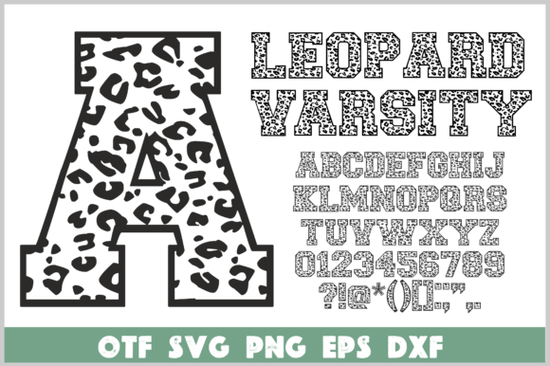
If you have been looking for a bold display typeface that mixes classic college lettering with a fierce animal texture, the Leopard Varsity Font is worth a close look. This font blends thick varsity shapes with a detailed leopard coat pattern inside each character, giving you a ready‑to‑use alphabet that feels loud, energetic, and completely original. It has become a favorite among crafters, print‑on‑demand sellers, and small clothing brands who want lettering that grabs attention without extra editing.
What makes this leopard print font different from a regular varsity style?
Many sports fonts rely on solid outlines and a plain fill. What sets this set apart is the built‑in animal texture. Every uppercase letter, lowercase letter, and number carries a high‑contrast leopard coat pattern that stays crisp at large sizes. Instead of applying a pattern overlay manually, you get the look instantly. That saves time when you are preparing hoodie mockups, poster art, or tumbler decals. The combination of collegiate weight and safari‑inspired detail makes the typeface work for both retro‑style team apparel and trendy streetwear.
What can I actually make with a bold animal alphabet?
How does it hold up on different backgrounds and materials?
Because the leopard detail has high contrast with a mix of dark spots and a light base inside each letter, the font stays readable on both light and dark fabrics. On dark hoodies, a gold or white heat transfer vinyl cut brings out the texture well. On light backgrounds, the pattern inside the letters creates a rich, dimensional look even without an outline. Designers who work with sublimation find the PNG files especially useful because they can stack the alphabet over leopard‑print backgrounds without losing the letter shapes.
Does it support multilingual projects or special characters?
This is a display font first, so it covers a broad set of uppercase and lowercase letters along with numerals and basic punctuation. It is not designed for extended script systems, but for typical English, Spanish, French, and German wording it works without issues. If you need to spell a brand name or short slogan, you should have all the standard characters you need.
How does the Leopard Varsity Font compare to other decorative fonts?